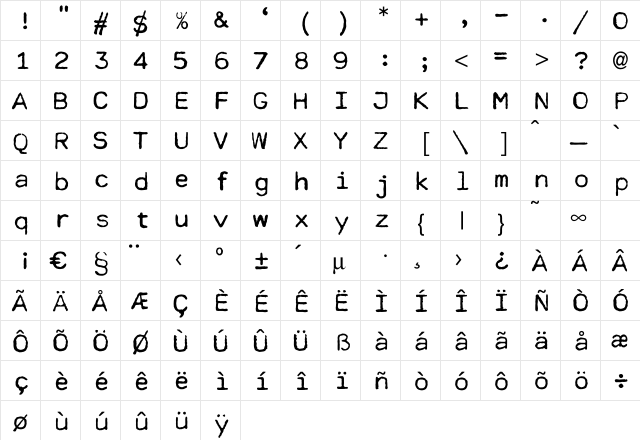
Cella Regular
| Foundry | Volker Busse Berlin |
| Designer | Volker Busse |
Design Context for Cella Typeface
Cella is a composed and adaptable typeface that performs quietly and consistently across a wide range of design contexts.